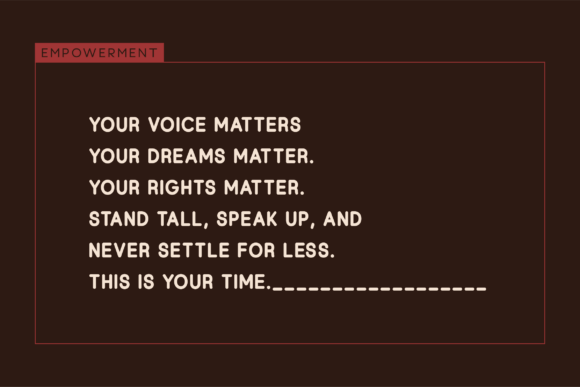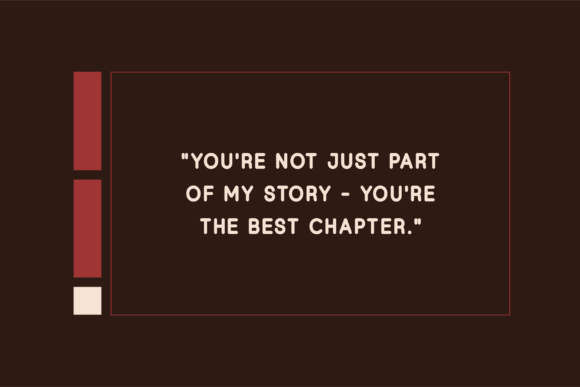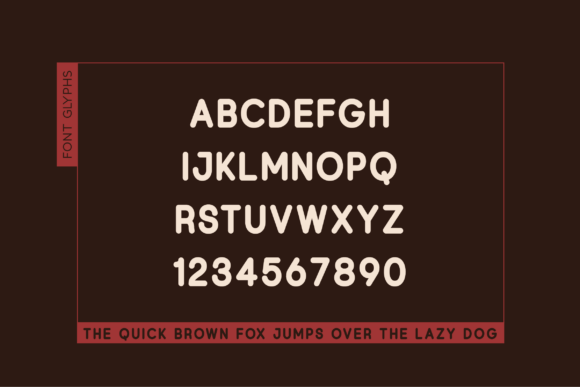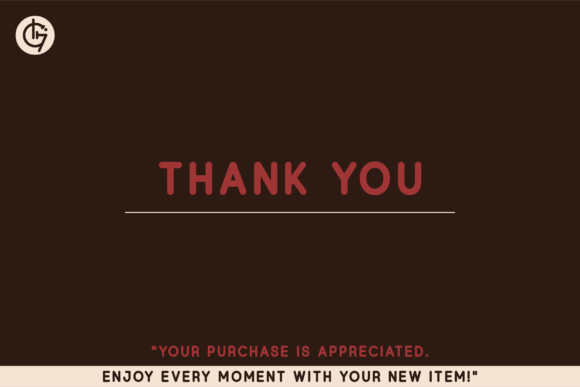
Unleash Bold Confidence with Groshiro Font: The Powerhouse Sans-Serif Display Typeface
In the realm of typography, few fonts command attention and exude confidence like Groshiro. This robust sans-serif display typeface is engineered to make a statement, boasting a heavyweight design that demands the viewer’s eye. With its unique blend of structural integrity and friendly, rounded terminals, Groshiro is the perfect choice for designers and crafters seeking to create loud headlines, assertive branding, and high-impact visual communications.
The Anatomy of Groshiro Font
Groshiro’s design is characterized by its bold, rounded confidence. The font’s robust structure ensures that it stands out in any context, making it an ideal choice for applications where message clarity is paramount. The rounded terminals add a touch of friendliness, preventing the design from feeling too industrial or cold. This harmonious balance of form and function makes Groshiro a versatile typeface suitable for various design applications.
Ideal Applications for Groshiro Font
Groshiro’s unique personality makes it an excellent fit for the world of sports, streetwear, and bold advertising. Its ability to communicate power and speed with clarity and impact renders it a popular choice among designers seeking to create high-energy visual communications. Whether you’re designing apparel, stickers, or large-scale billboards, Groshiro font is sure to make your message stand out.
Sports and Streetwear
In the fast-paced world of sports and streetwear, visual communications need to be bold, attention-grabbing, and instantly communicative. Groshiro font excels in these situations, providing a typographic solution that embodies the dynamism and energy of these industries. Its robust design ensures that logos, headlines, and taglines cut through the noise, making it an excellent choice for designers seeking to create a lasting impression.
Bold Advertising and Large-Scale Billboards
When it comes to large-scale billboards and bold advertising, message clarity is crucial. Groshiro font is optimized for high-impact visual communications, ensuring that your message is conveyed with precision and clarity, even at a distance. Its heavyweight design and rounded terminals create a visually appealing contrast that draws the viewer’s eye and holds their attention.
Enhancing Groshiro Font with High-Contrast Color Combinations
To amplify the impact of Groshiro font, designers can experiment with high-contrast color combinations that accentuate its bold personality. Pairing Groshiro with vibrant colors like orange and black or white and red creates a visually striking contrast that adds to the font’s high-energy, high-impact appeal. These color combinations not only enhance the aesthetic appeal of your design but also reinforce the message you’re trying to communicate.
To get the most out of Groshiro font, consider the following tips:
- Experiment with high-contrast color combinations to amplify the font’s impact.
- Use Groshiro font for headlines, logos, and taglines where bold confidence is essential.
- Pair Groshiro with complementary fonts to create visual interest and hierarchy.
- Don’t be afraid to push the boundaries of Groshiro’s design – its versatility makes it an excellent choice for creative experimentation.
Groshiro font is a powerhouse sans-serif display typeface that embodies bold confidence and structural integrity. Its unique blend of robust design and friendly, rounded terminals makes it an excellent choice for designers and crafters seeking to create high-impact visual communications. Whether you’re designing for sports, streetwear, or bold advertising, Groshiro font is sure to make your message stand out. Experiment with high-contrast color combinations, push the boundaries of its design, and unlock the full potential of Groshiro font in your next design project.